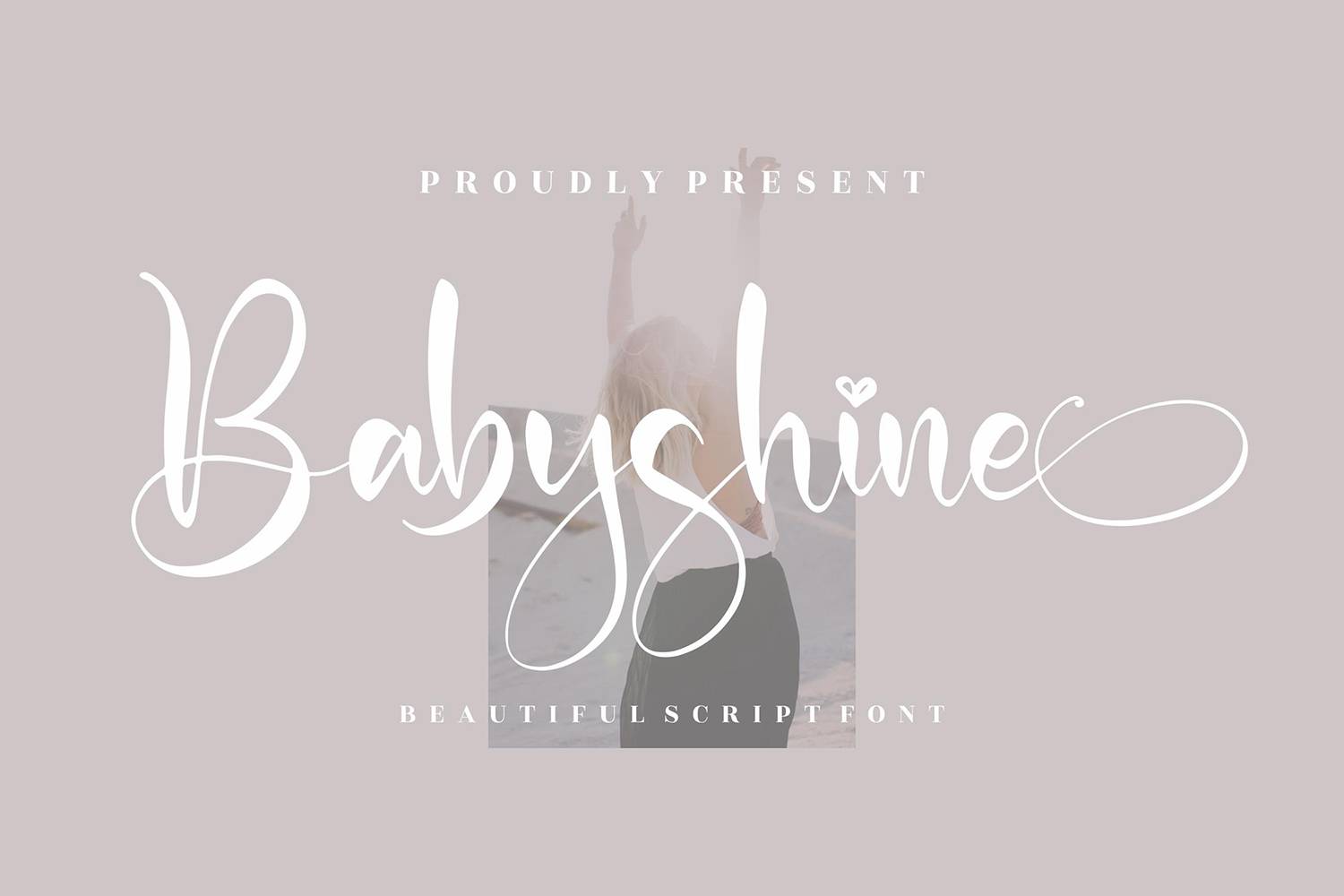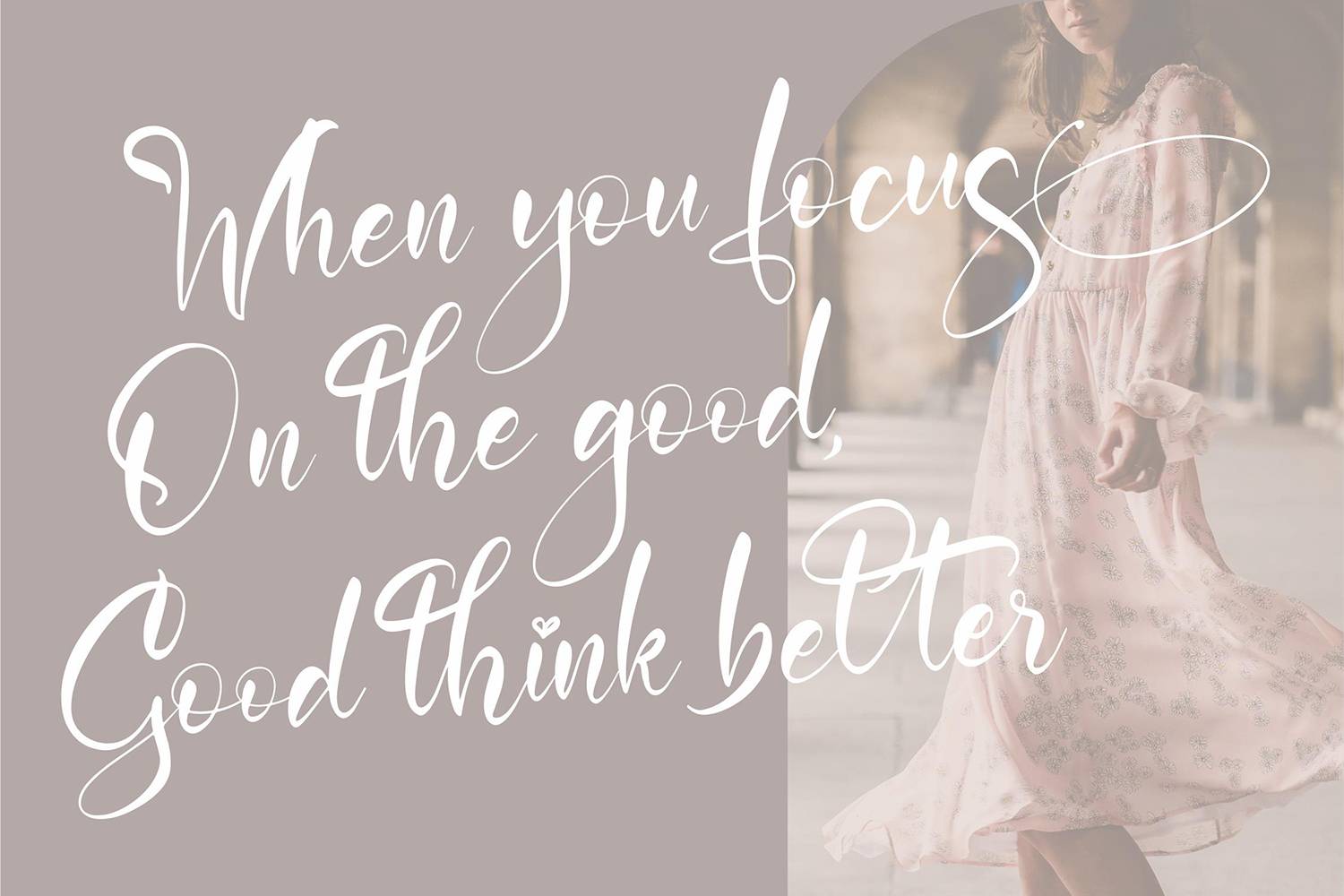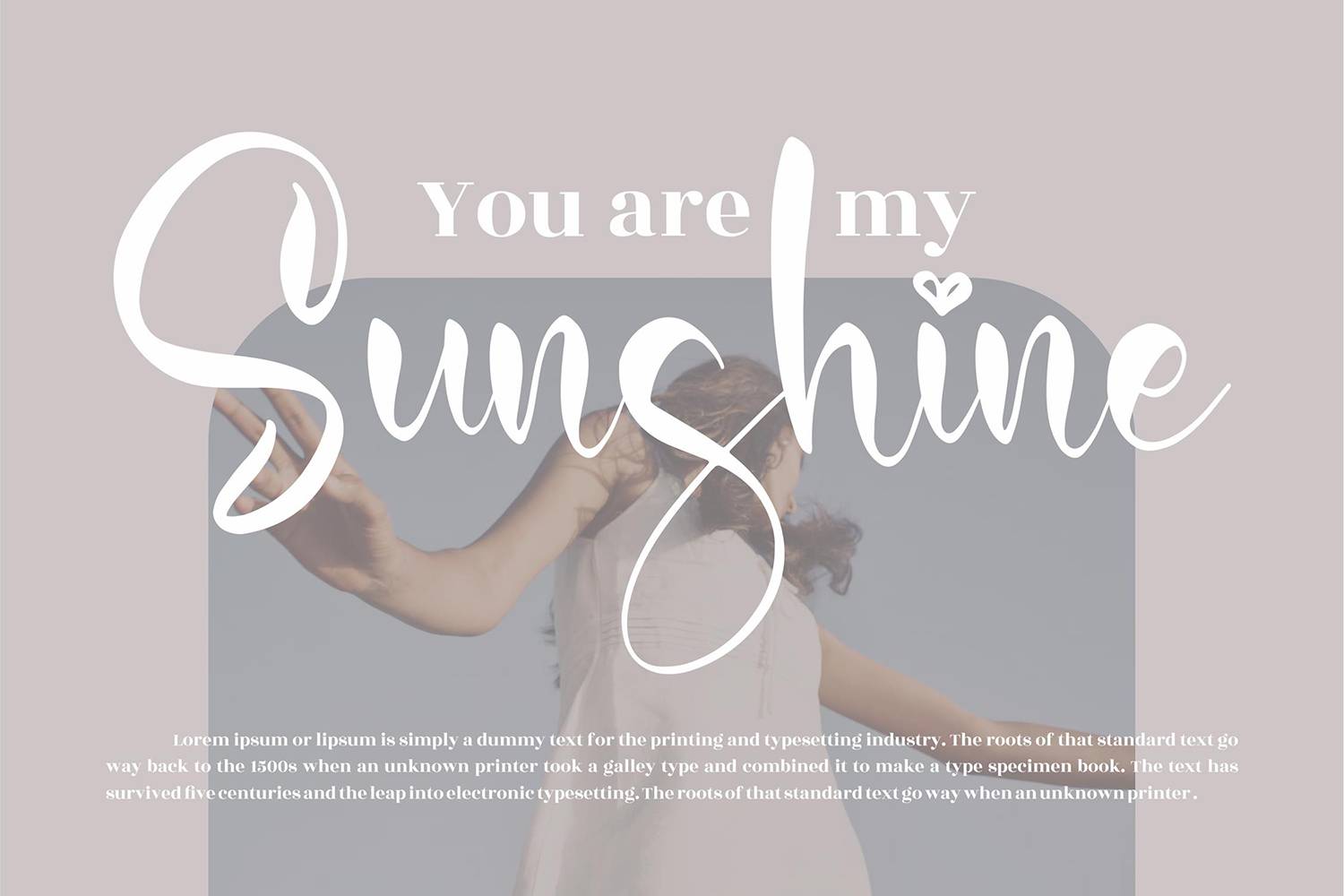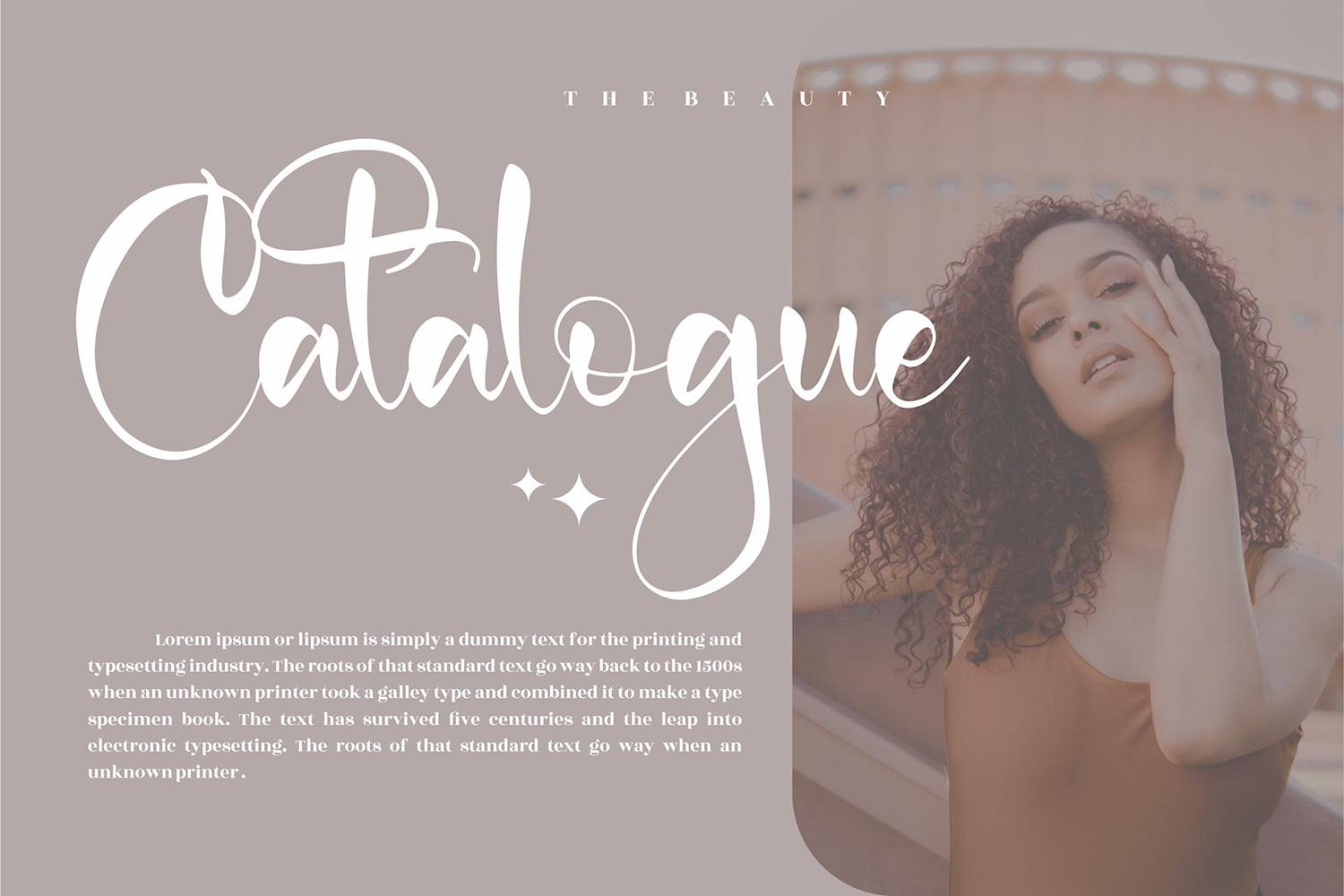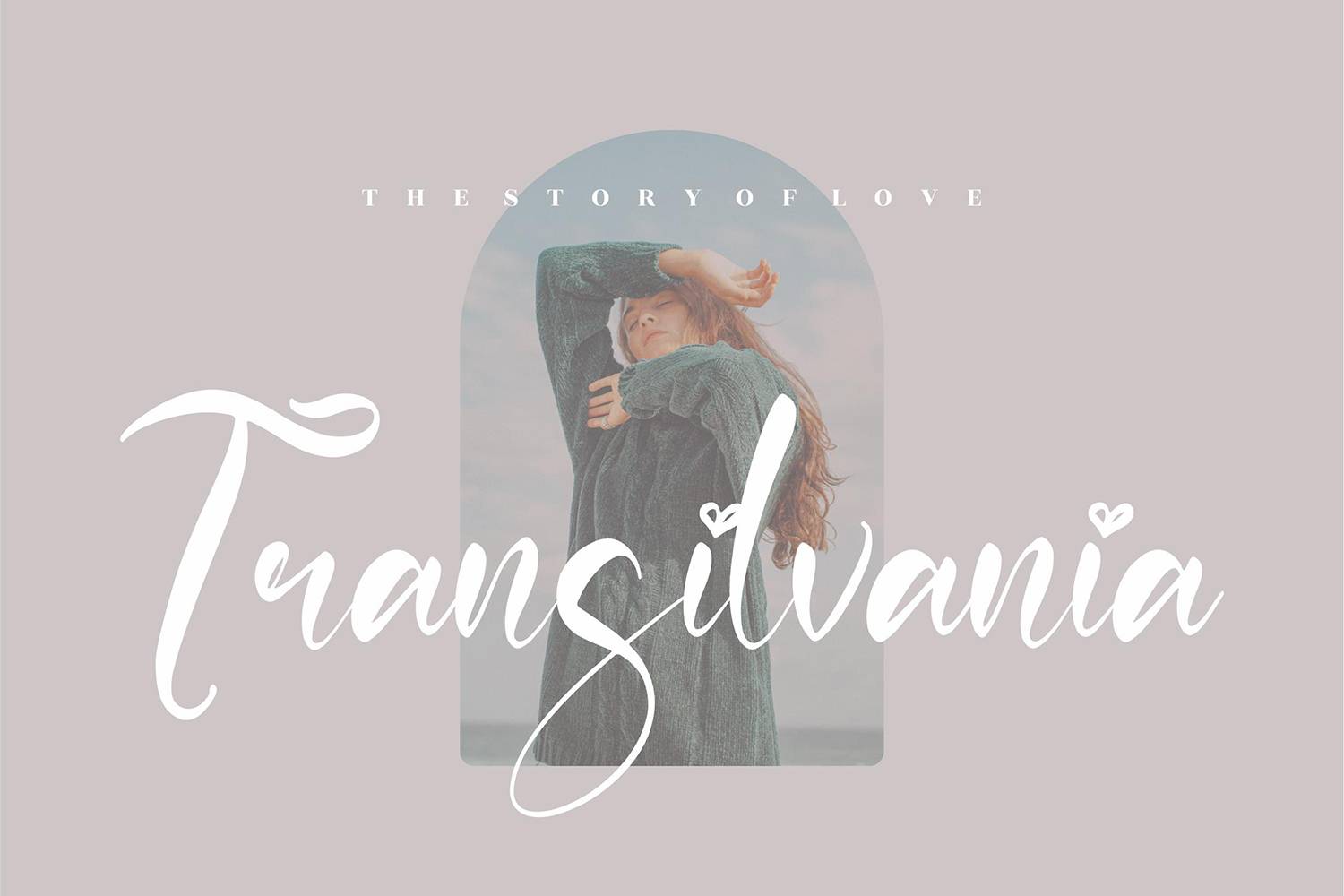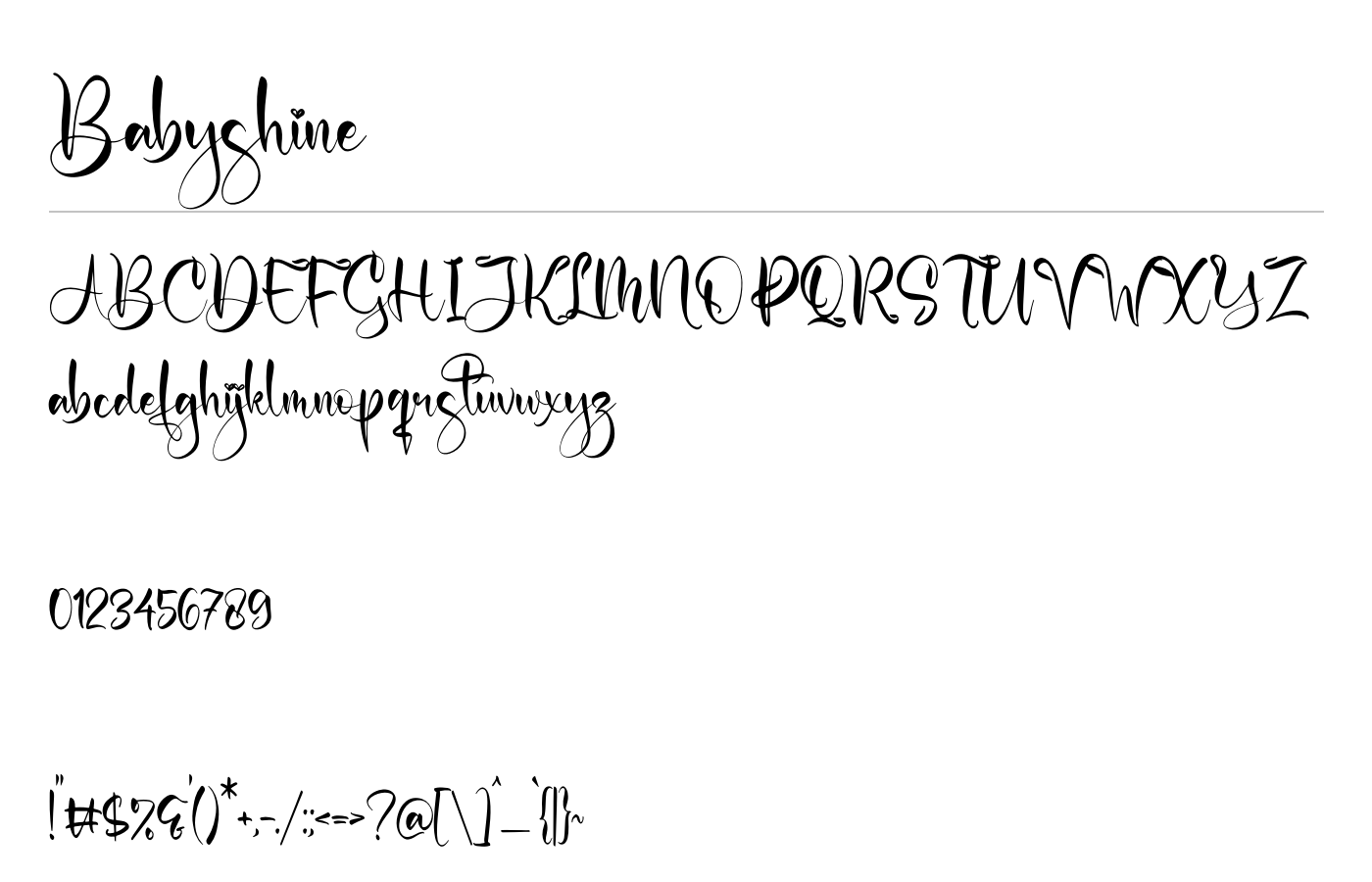
Babyshine Font is a playful and elegant script typeface with delicate, flowing strokes and charming flourishes that give it a hand-drawn, whimsical feel. Its light weight and varying line thicknesses add a graceful, feminine touch, making it perfect for creative branding, invitations, and any design seeking a warm, approachable personality. This font shines best in logos, greeting cards, and decorative headlines where its stylish, artistic character can truly stand out.
Babyshine Font
About Babyshine Font